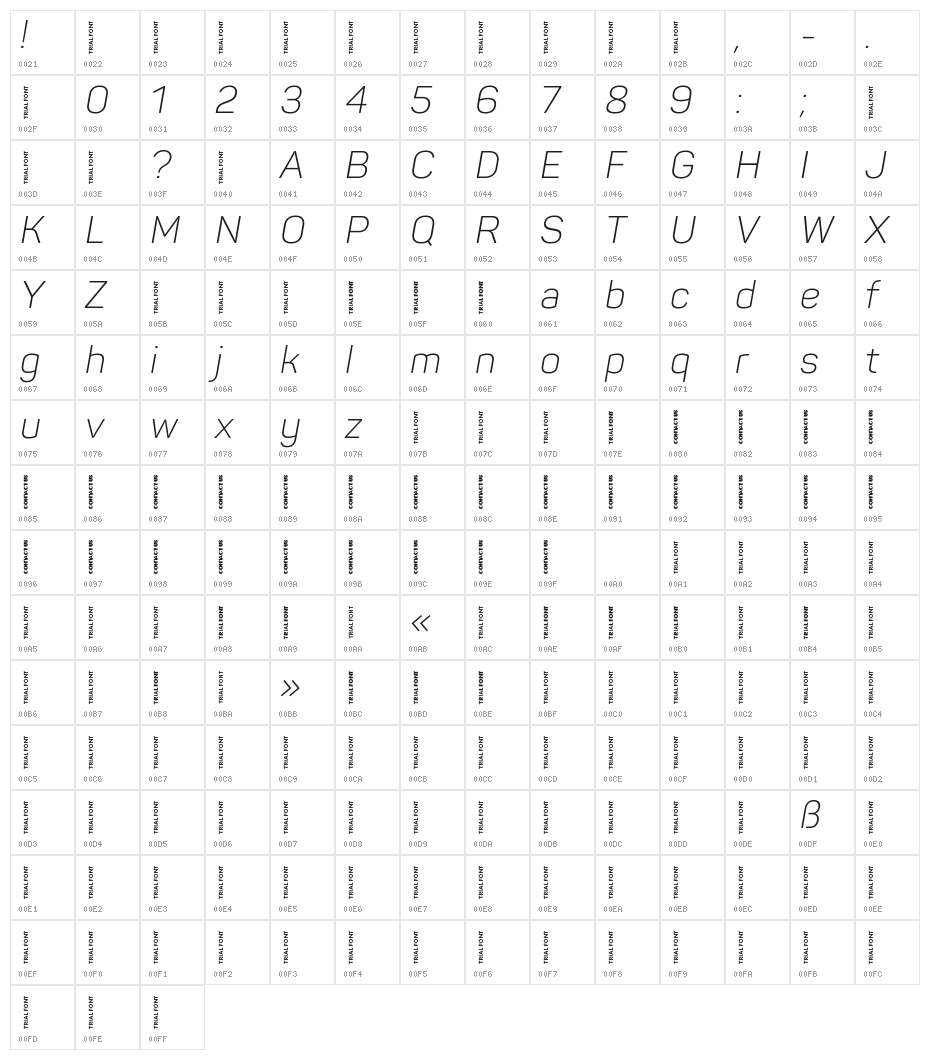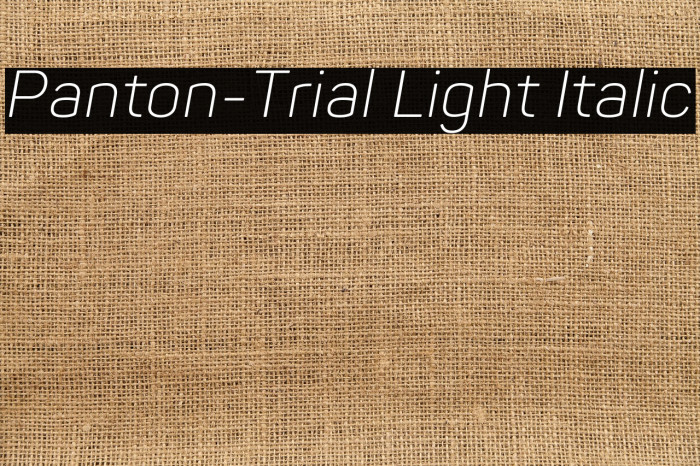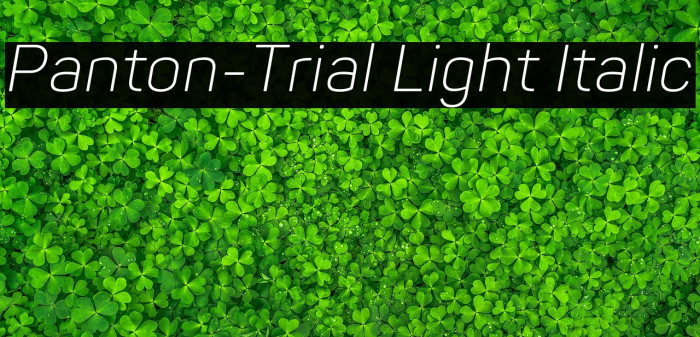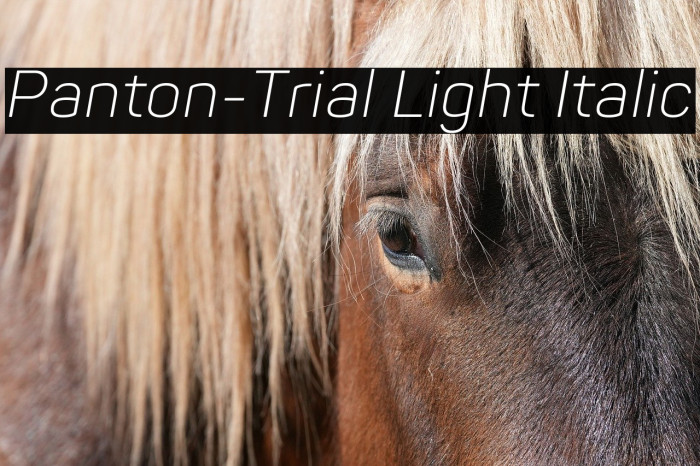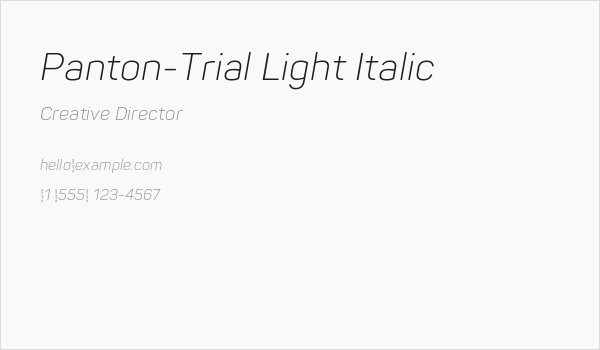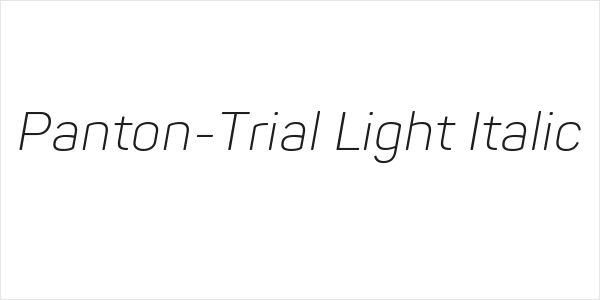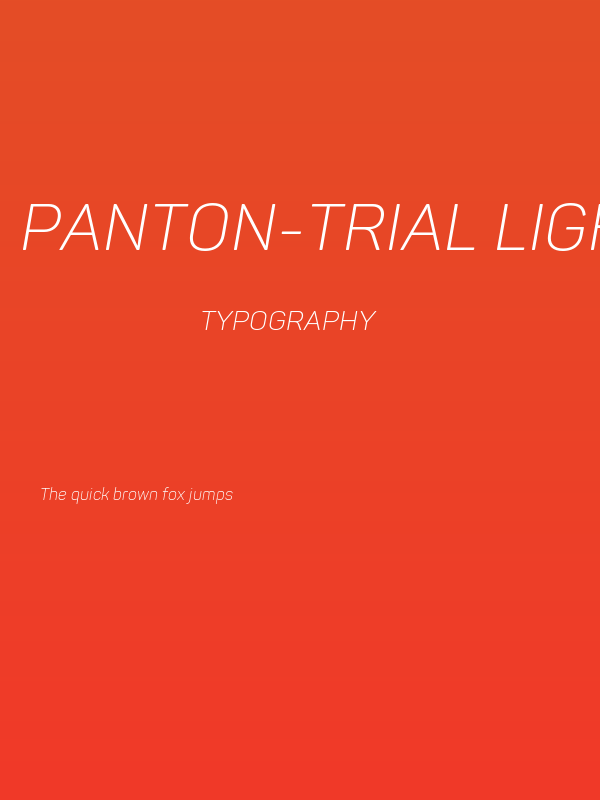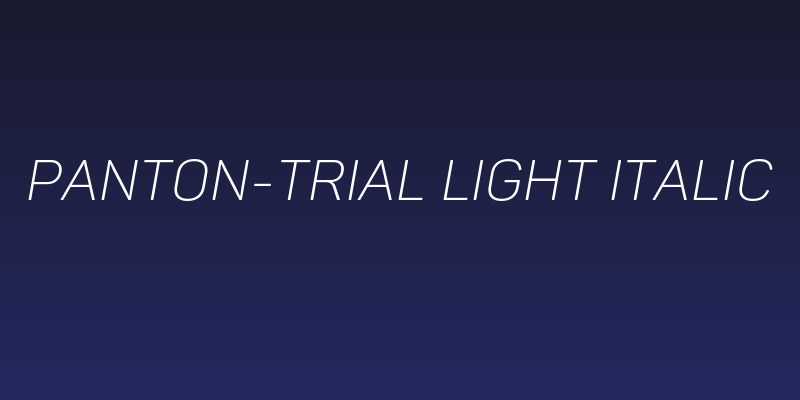
Panton-Trial Light Italic Font
Panton-Trial Light Italic Description
This typeface is a sleek and modern sans-serif font with a light weight and italic style. The characters are elegantly elongated, giving a sense of motion and fluidity. The design is clean and minimalistic, with smooth curves and a consistent stroke width that enhances readability. The font maintains a uniform appearance across uppercase, lowercase, numerals, and special characters, making it versatile for various design needs. Its contemporary aesthetic is suitable for projects that require a touch of sophistication and modernity.